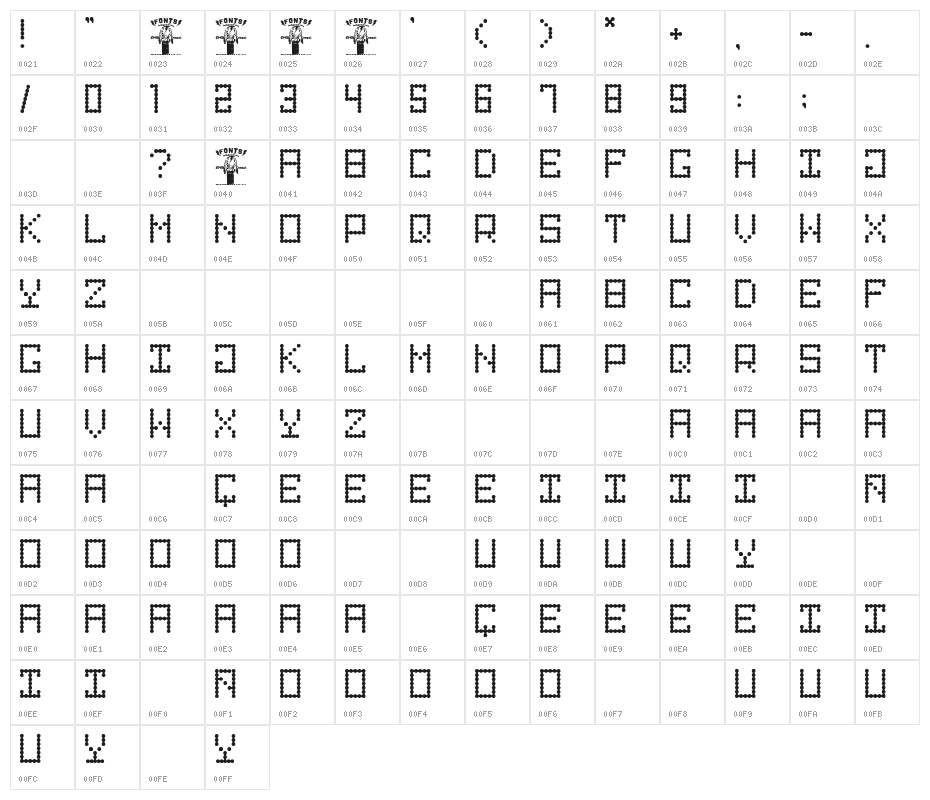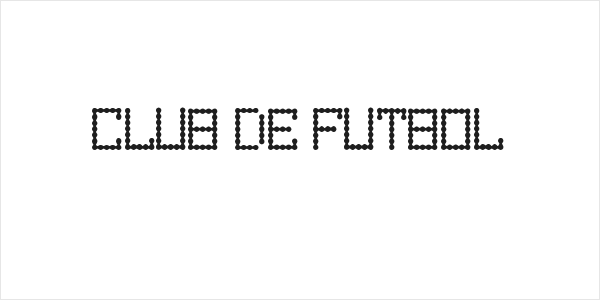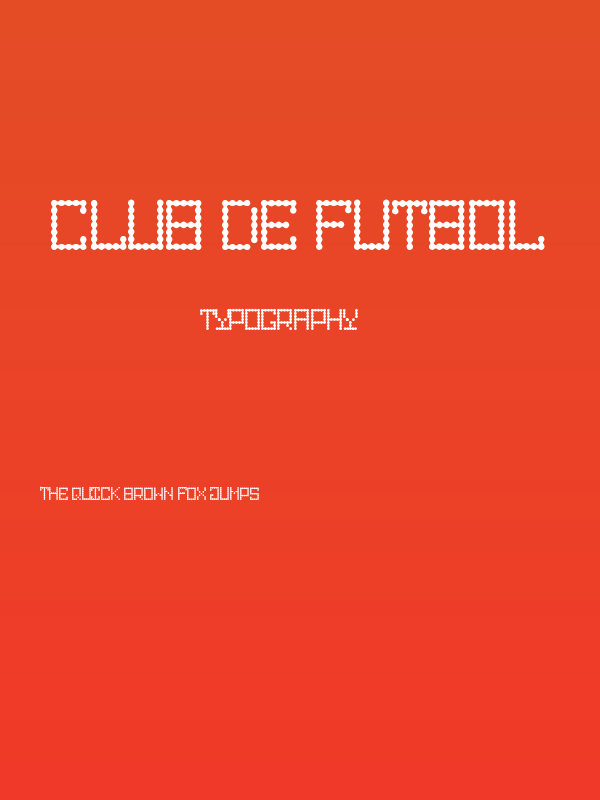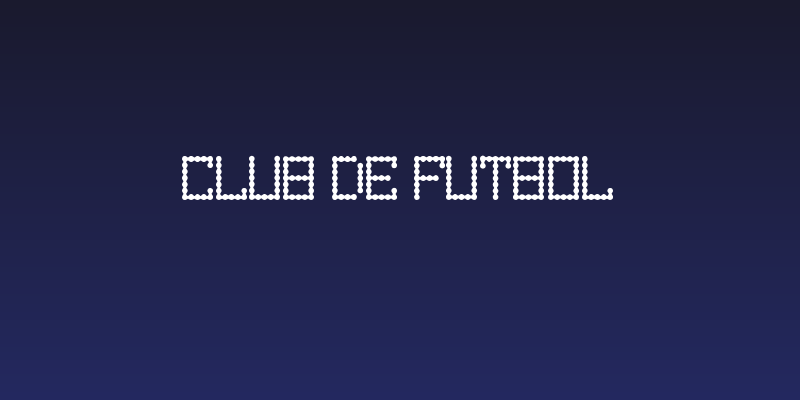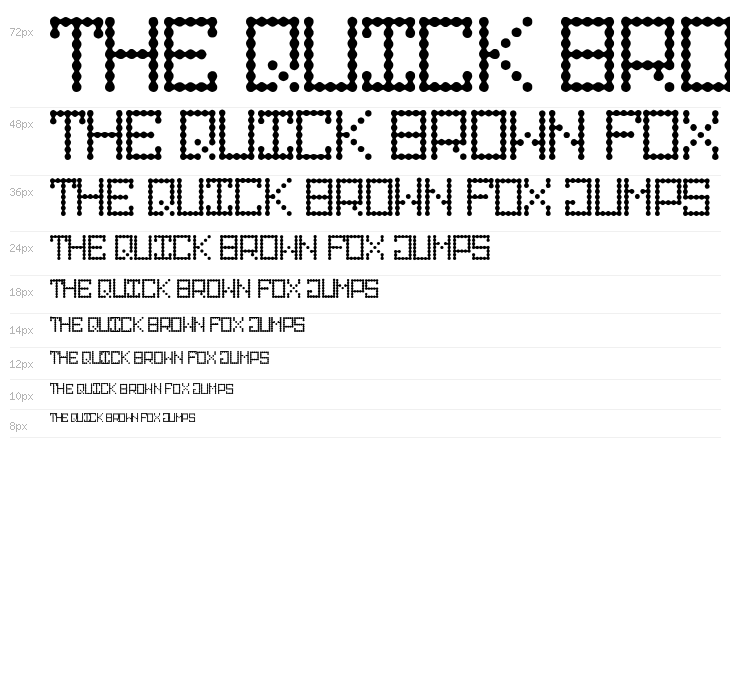
Club de Futbol Font
Club de Futbol Description
A geometric, dot-matrix style font where each character is constructed from evenly spaced circular dots, creating a digital and modular appearance. All letters, numbers, and symbols are formed with consistent spacing and rounded shapes, giving a cohesive and playful look.
| Overall Style | Modern, Decorative, Digital |
| Use Case | Headlines, Logos, Posters, Digital interfaces |
| Proposed Projects | Scoreboards, digital displays, sports branding, event posters, tech-themed graphics. |